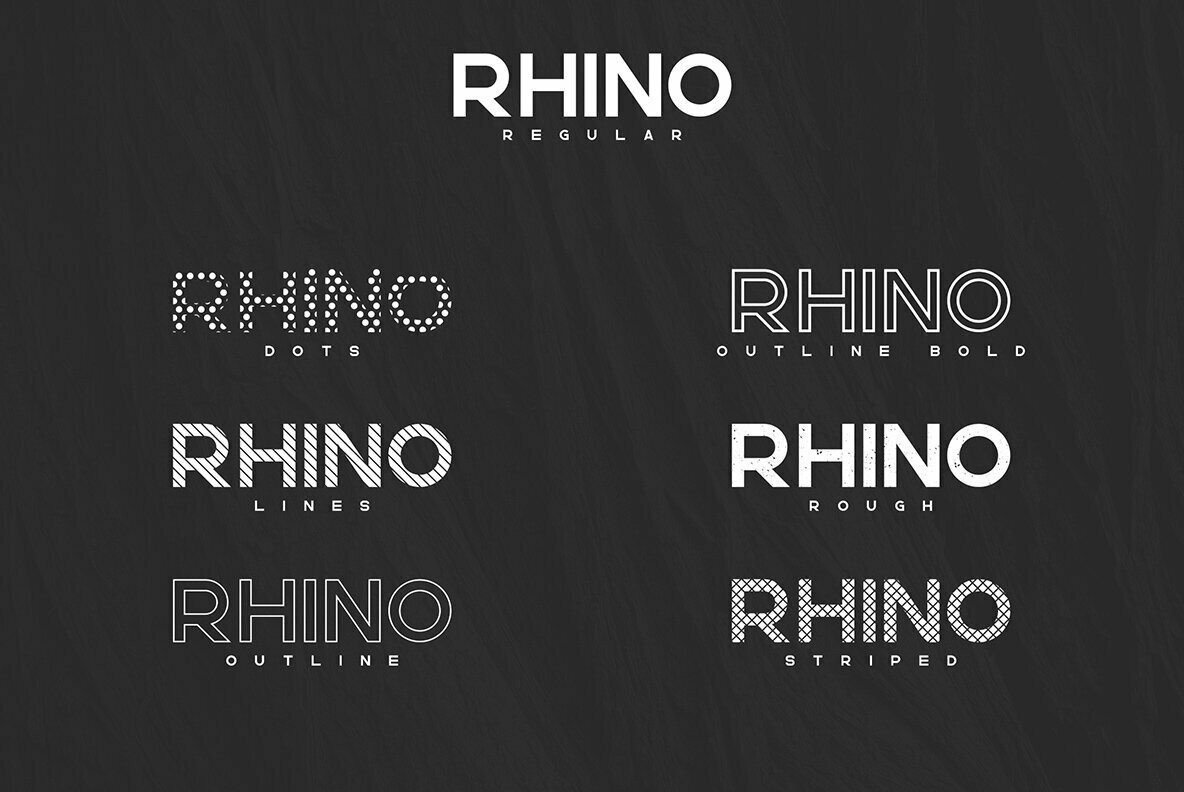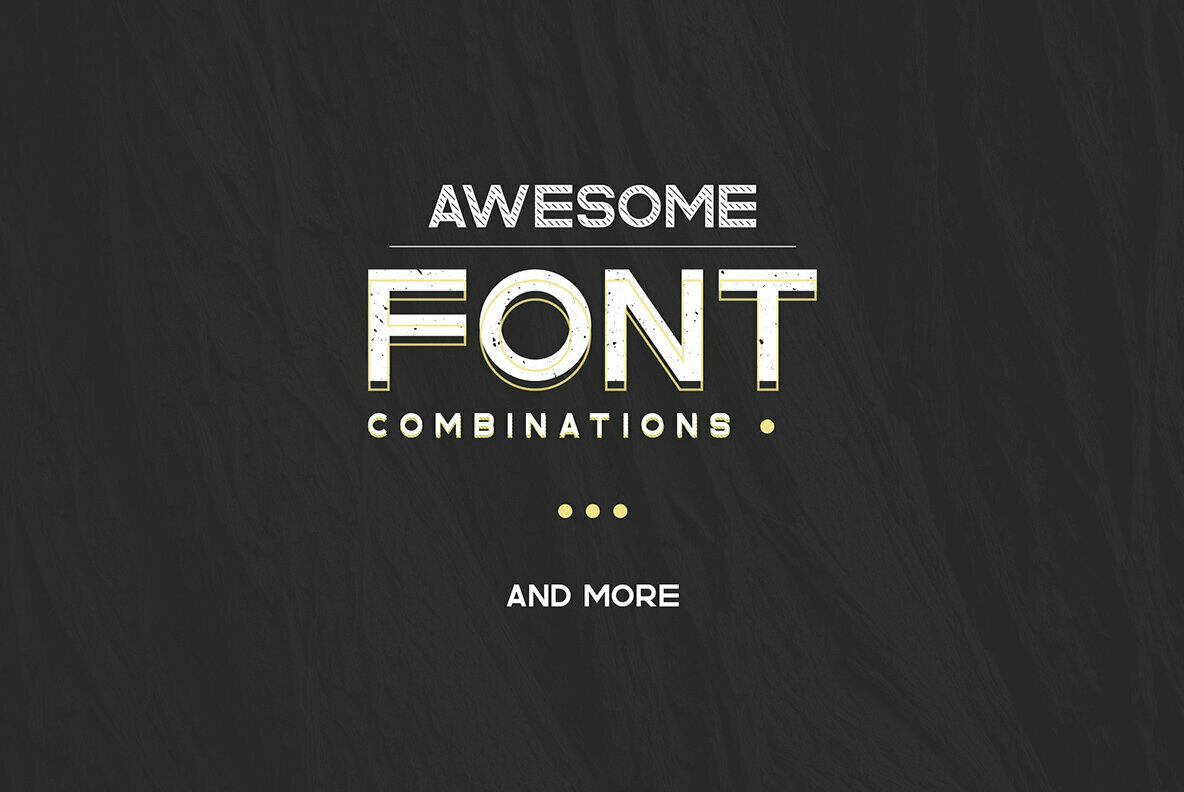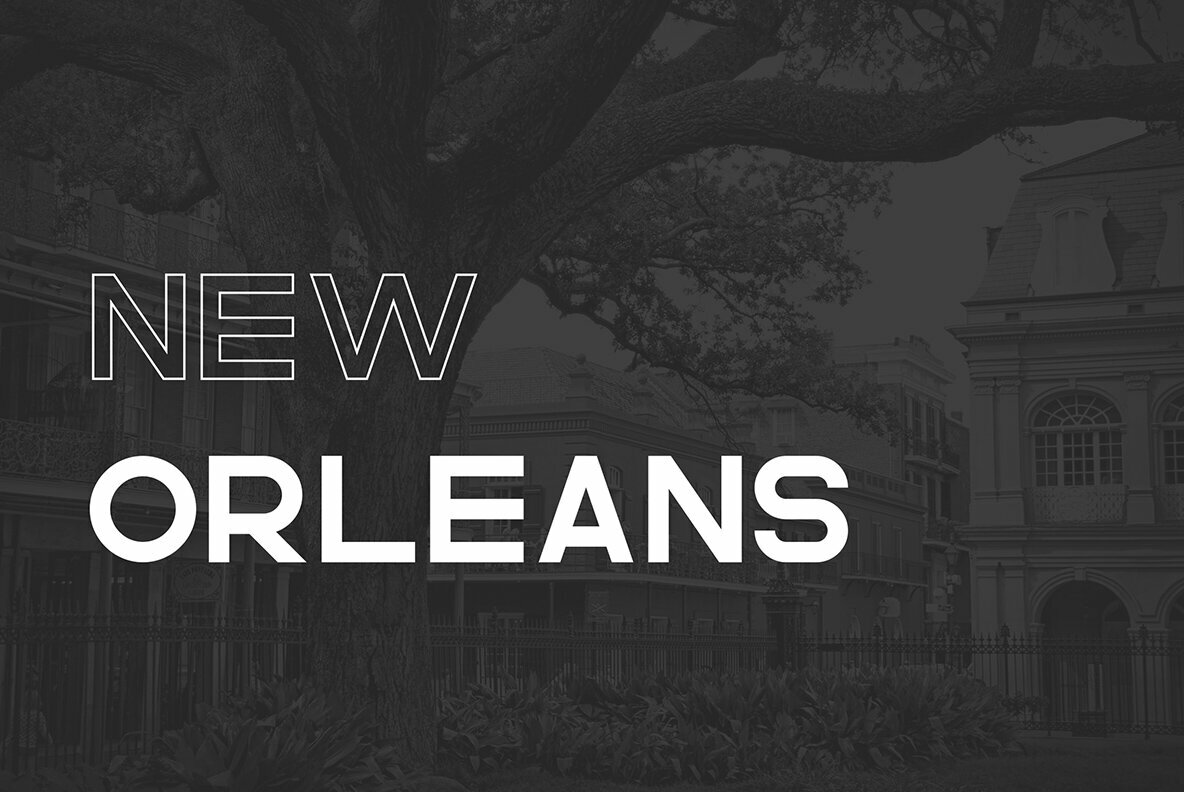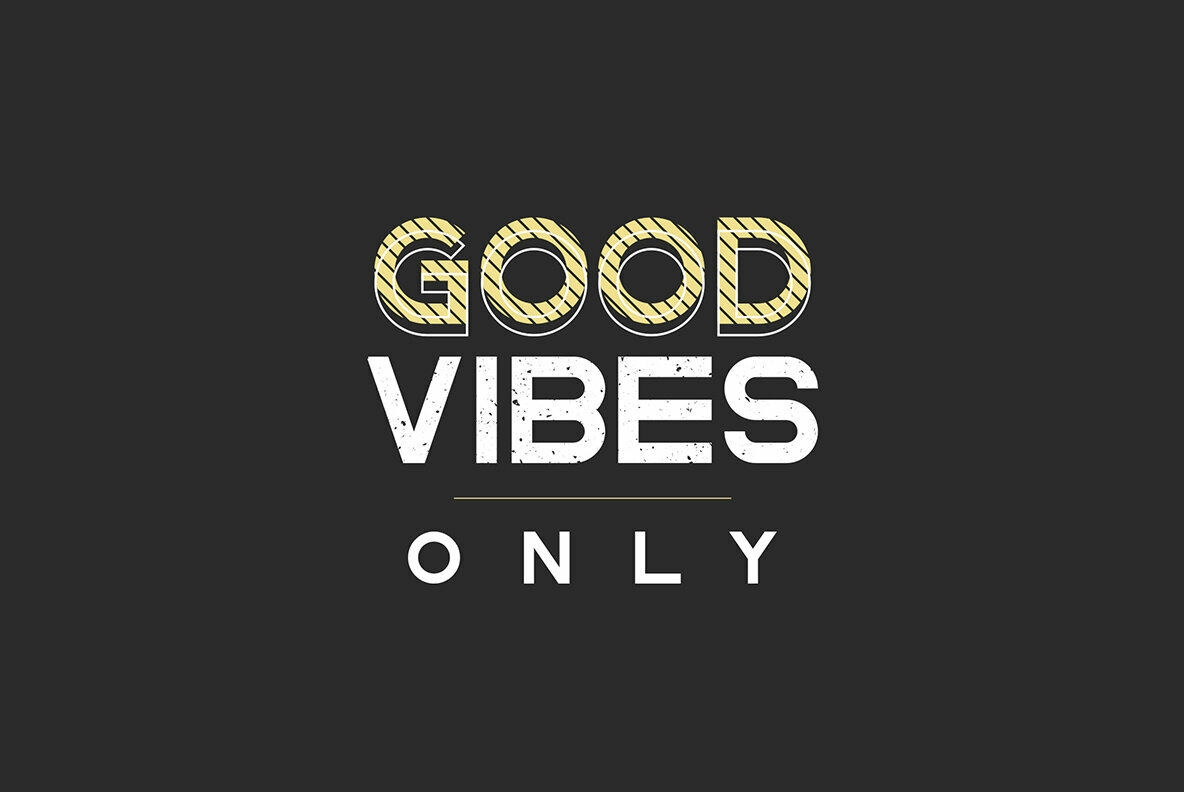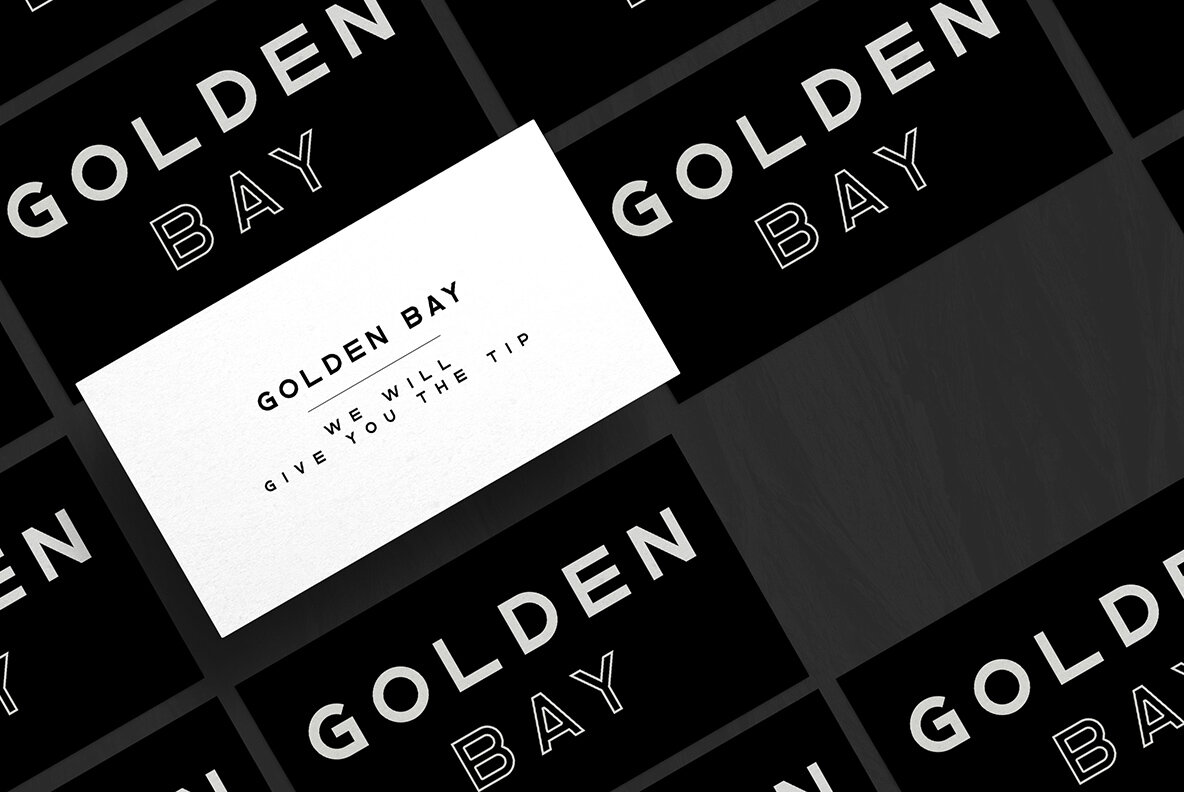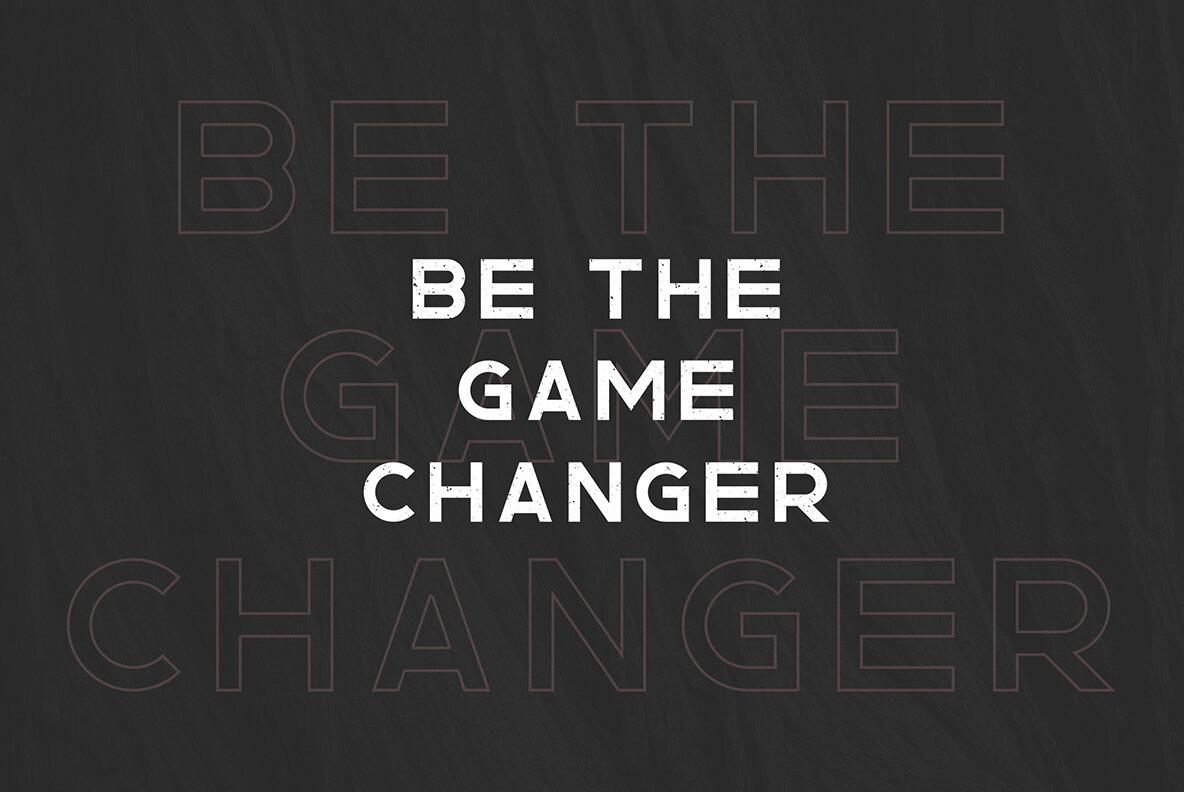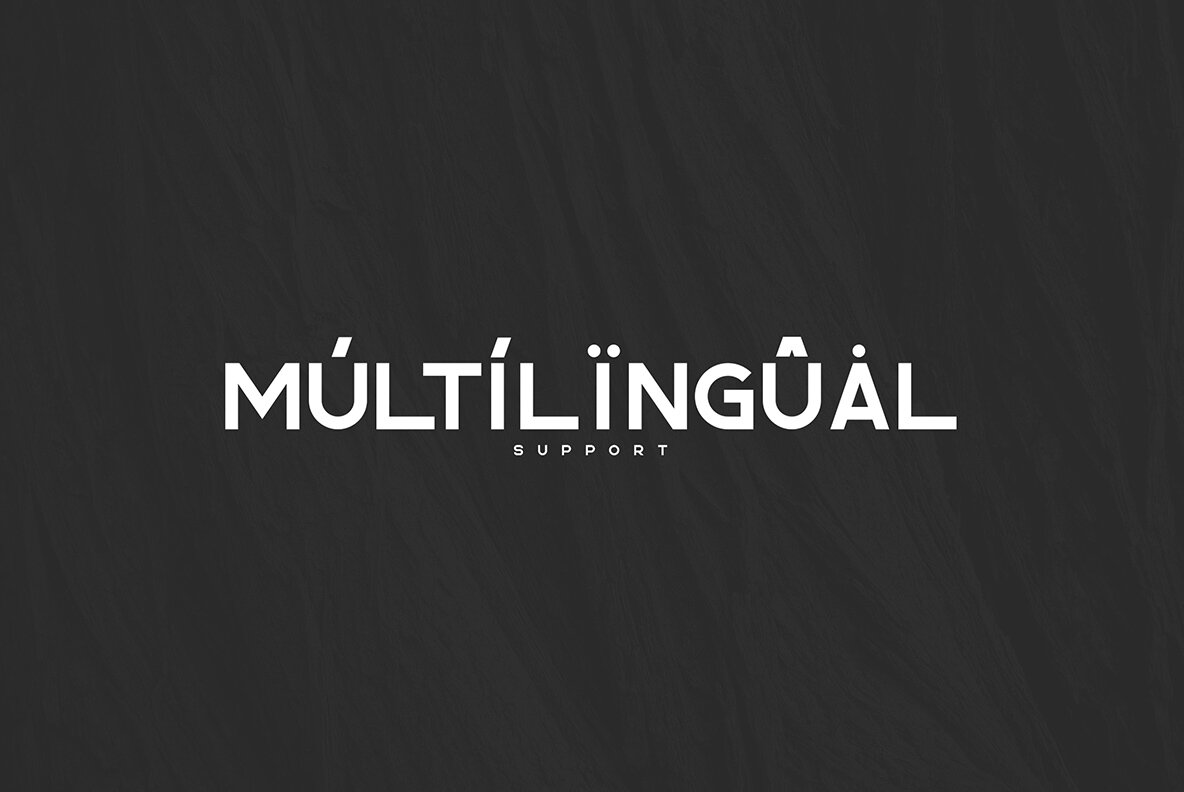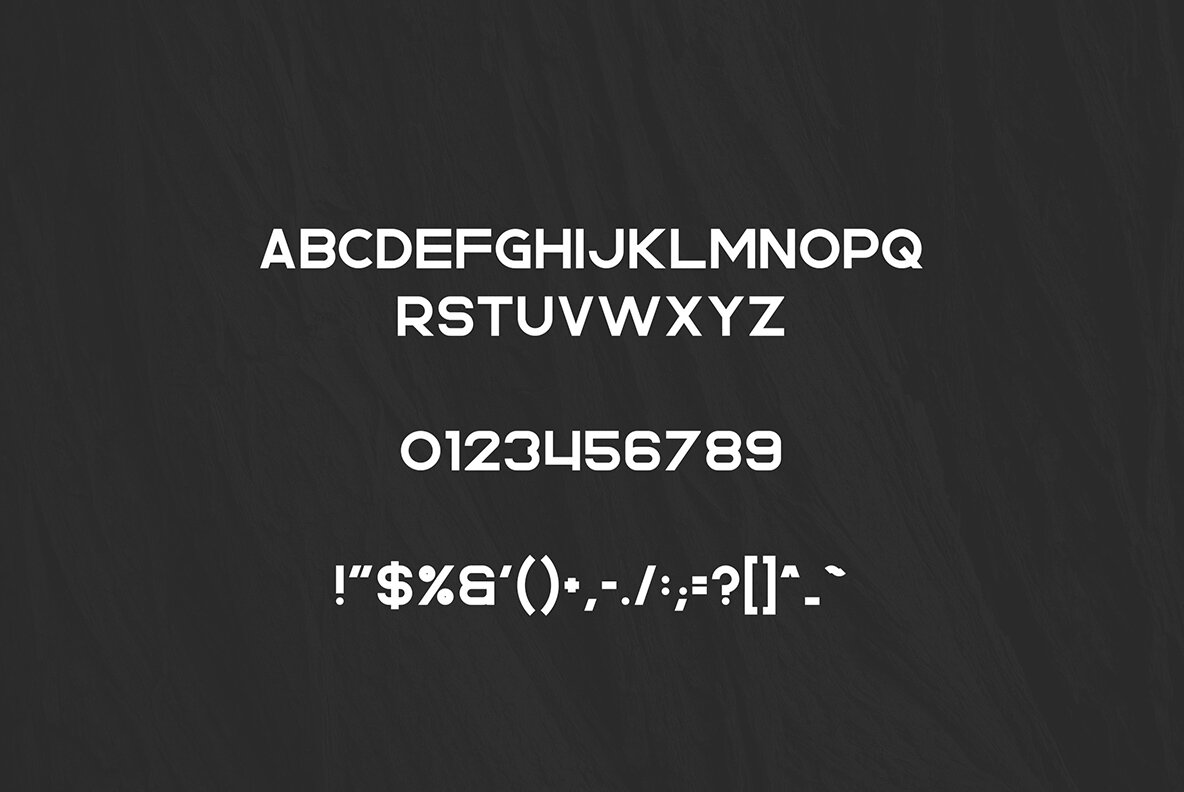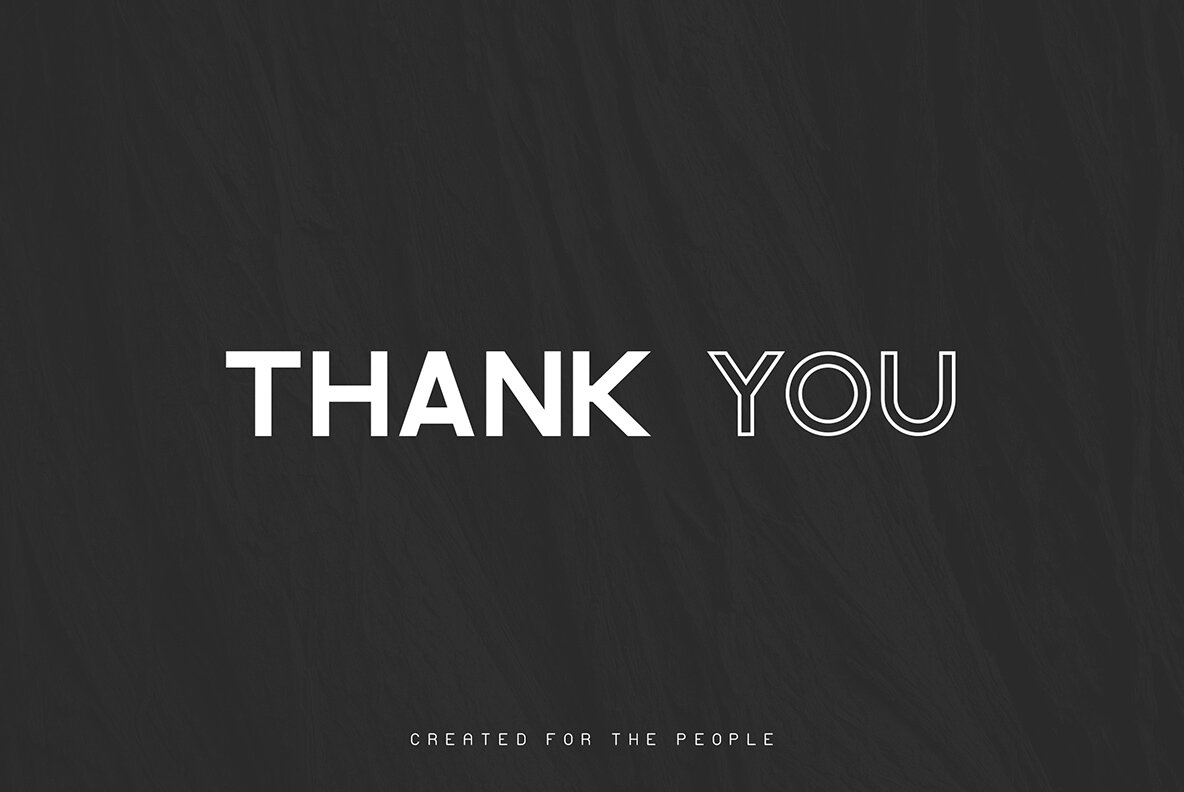
Rhino Font
Rhino is clean, bold typeface with 7 fonts and multilingual support. It's a very versatile font that works great in large and small sizes. Rhino is perfect for branding projects, home-ware designs, product packaging, magazine headers - or simply as a stylish text overlay to any background image.
- Uppercase, Lowercase, Numeral, Punctuation & Symbol
- Regular
- Dots
- Lines
- Outline
- Outline Bold
- Rough
- Striped